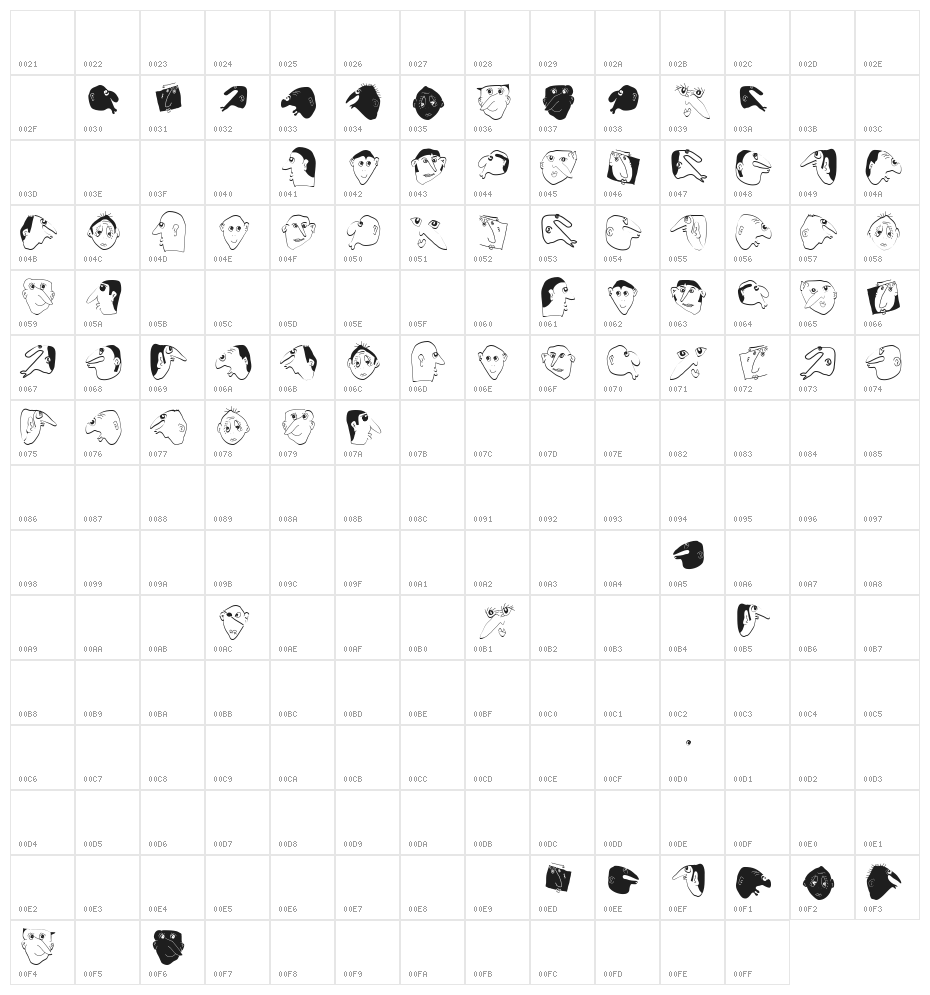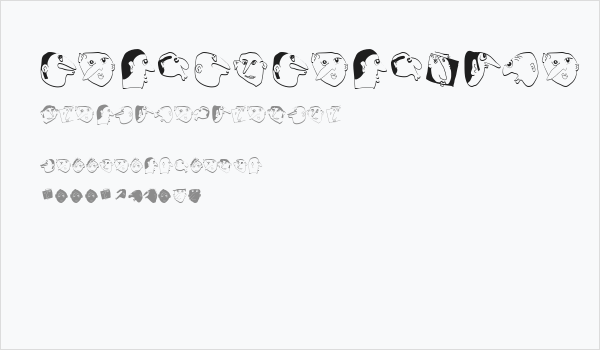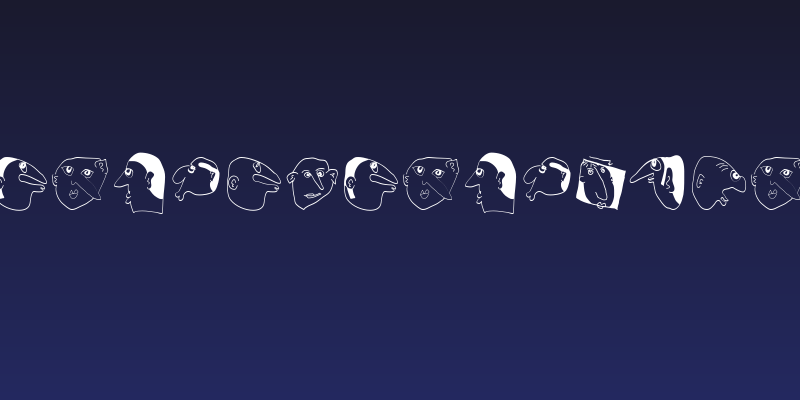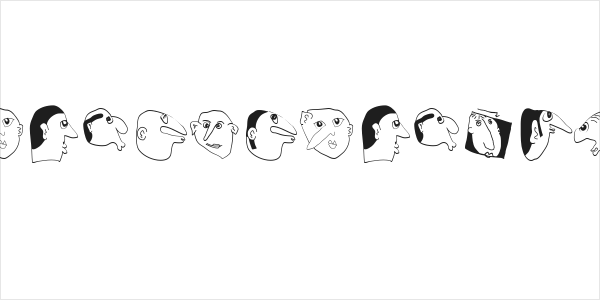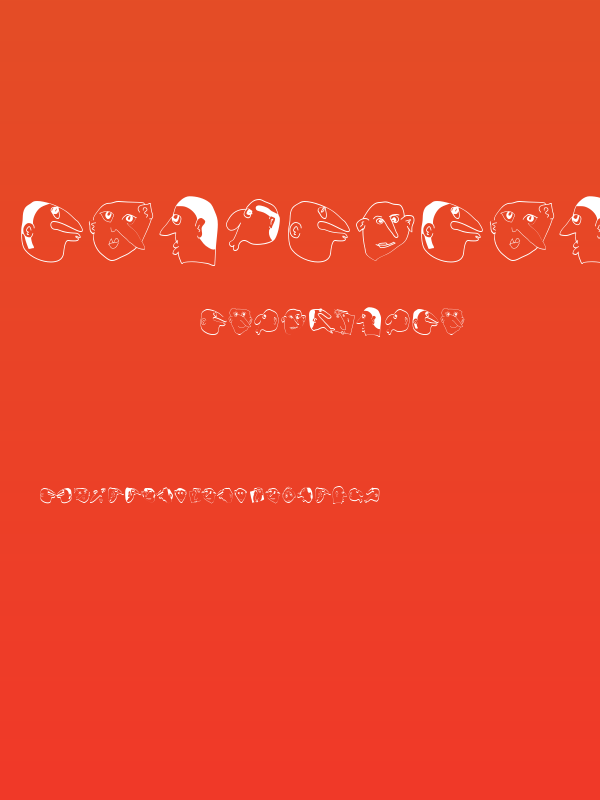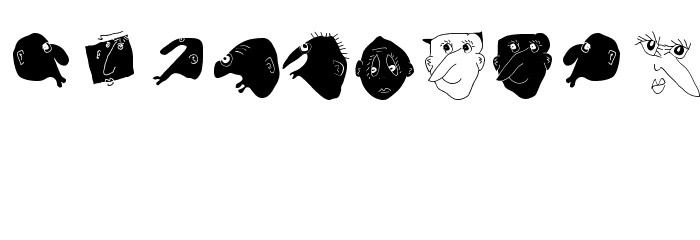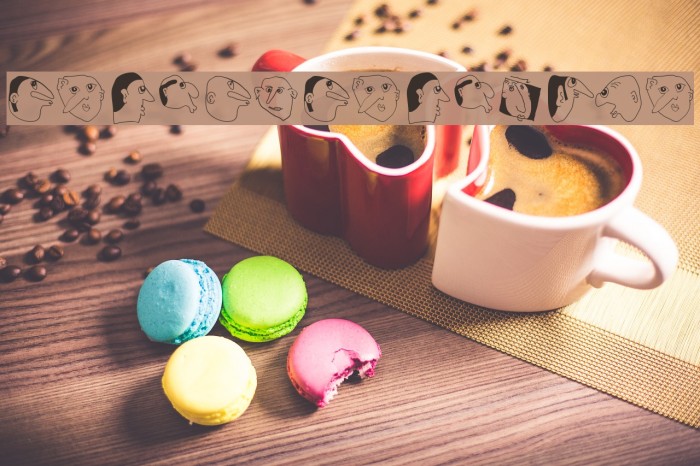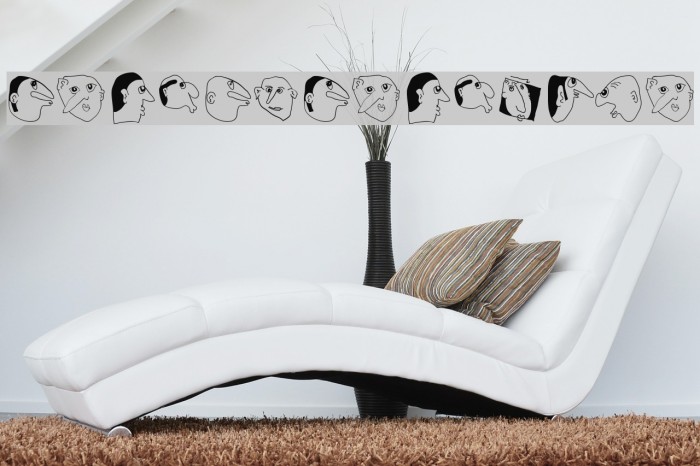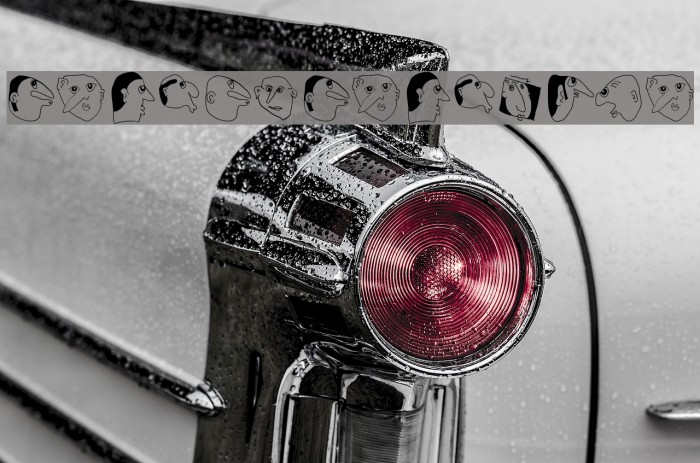
HeadToHeadFive Font
HeadToHeadFive Description
A highly decorative and whimsical font where each character is represented by a unique, hand-drawn face in profile, featuring a mix of black and white fills and expressive line work. The glyphs are playful, irregular, and full of personality, making each letter and symbol visually distinct.
| Overall Style | Decorative, Whimsical, Artistic |
| Use Case | Logos, Headlines, Posters, Artistic projects |
| Proposed Projects | Children’s books, posters, album covers, creative branding, art projects, editorial illustrations. |